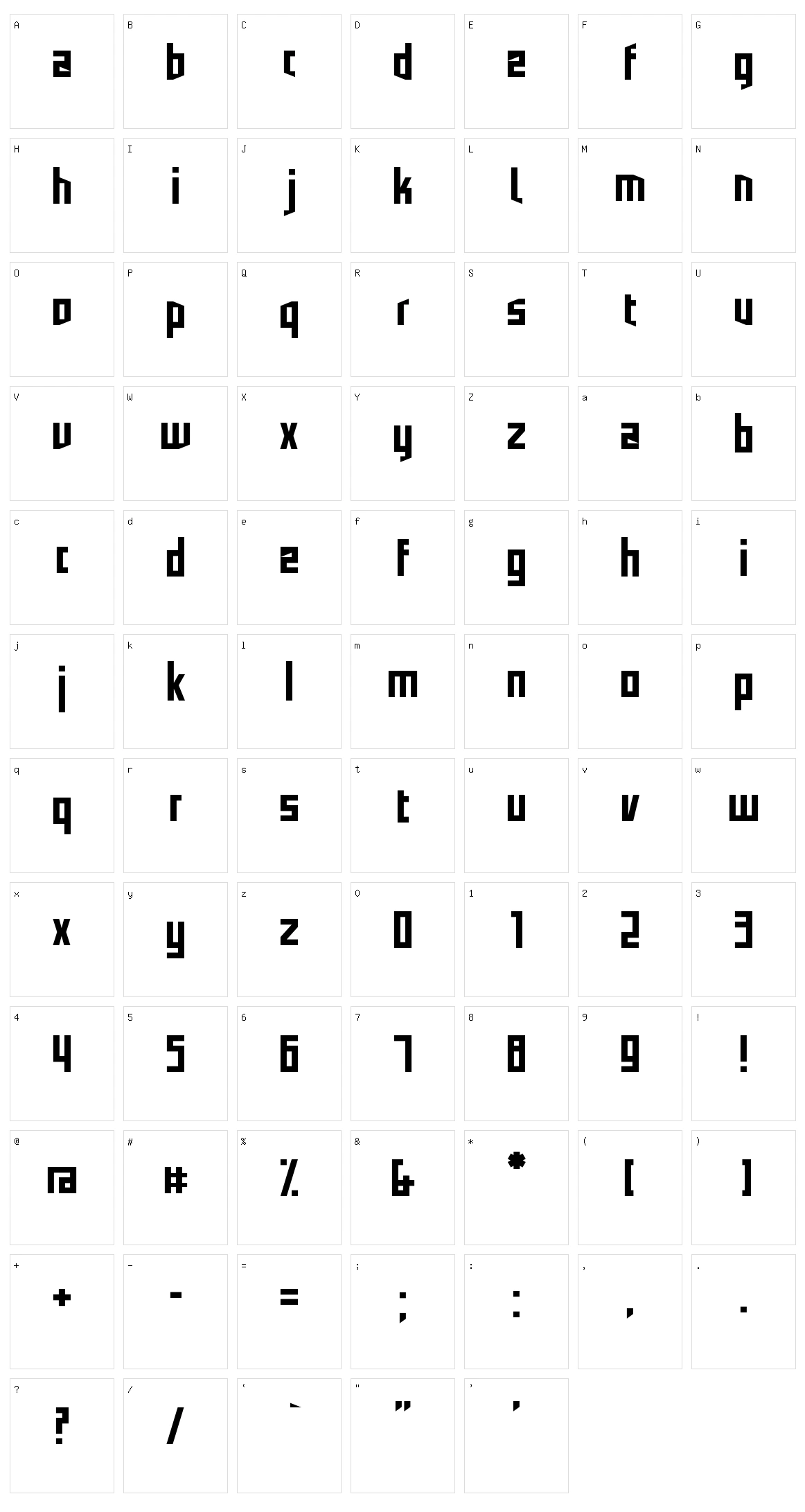
The free font Resistance is carefully designed by frankfurtwest, showcasing a thoughtful balance of creativity and usability and falls under the Square font style. When you download the ZIP file, it contains only 6.74 KB of font files, making it lightweight and quick to download. Please review the license details below to understand permitted usage and distribution rights. If license information is not available, we recommend using this font for personal projects only or contacting the author directly for commercial usage permissions.